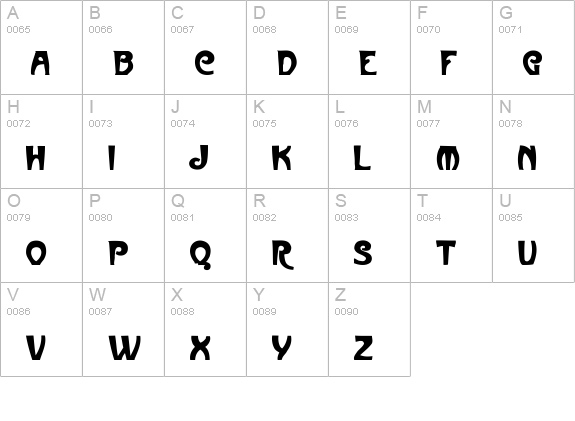
ParisMetroCaps Font Details
ParisMetroCaps is a stunning and versatile font that captures the essence of the iconic Parisian metro signage. This typeface brings the elegance and sophistication of the French capital to your designs, infusing them with a touch of Parisian charm. With its bold and clean letterforms, ParisMetroCaps is perfect for headlines, posters, branding, and any project that requires a bold statement. Not only does ParisMetroCaps showcase the timeless beauty of the Parisian metro signage, but it also offers the added benefit of being completely free. That's right, this remarkable font is freely available to download at FontsMarket.com. Now you can bring a piece of Paris into your creations without breaking the bank. The attention to detail in ParisMetroCaps is truly remarkable. Each letter is meticulously crafted, capturing the precise curvature and stroke widths of the original metro signage. This level of authenticity is a testament to the dedication and skill of the font designer. Whether you're designing a travel brochure, a fashion magazine, or a modern website, ParisMetroCaps will effortlessly elevate your project to new heights. Its bold and impactful presence commands attention, while its classic appeal ensures a timeless aesthetic that will never go out of style. ParisMetroCaps is not just a font, but a work of art that pays homage to the rich cultural heritage of Paris. It is a tribute to the iconic metro signage that has become synonymous with the city's identity. And now, with its availability as a free download at FontsMarket.com, you have the opportunity to incorporate this beautiful typeface into your designs and make a bold statement of your own. Download ParisMetroCaps today and embark on a creative journey that combines the elegance of Paris with the power of typography. Let this font be your guide as you explore new possibilities and bring your design visions to life. With ParisMetroCaps, the beauty of Paris is just a click away.